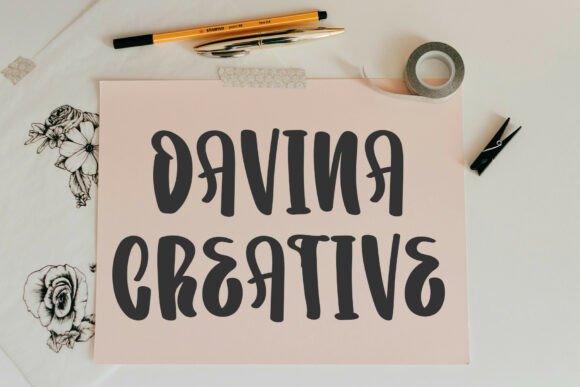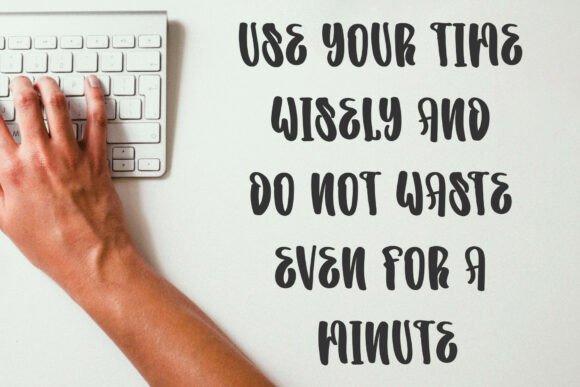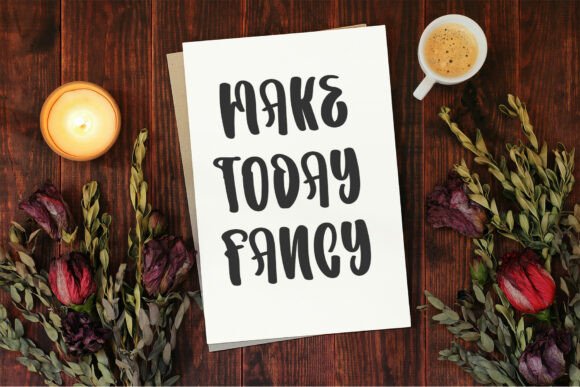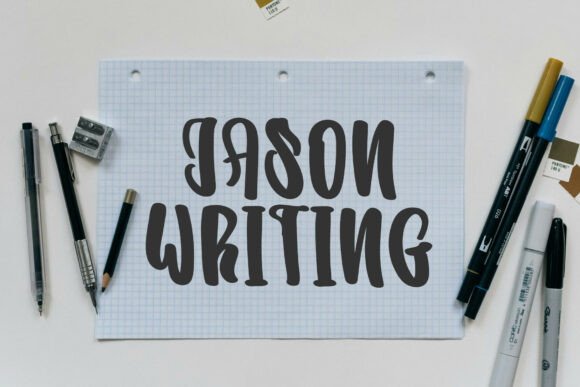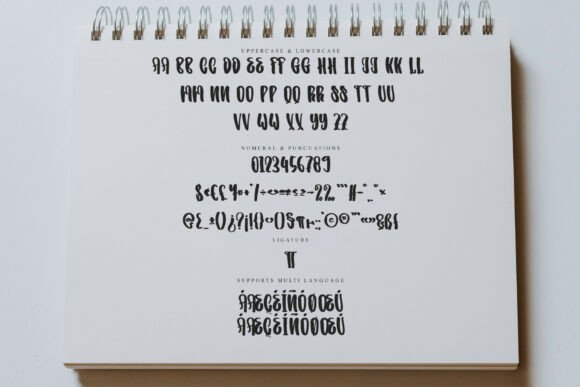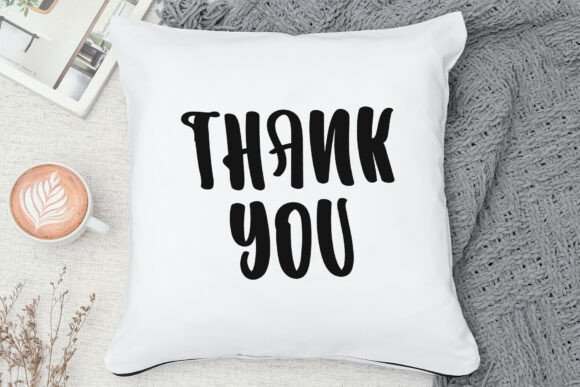
Introduction to Quarter Stacked Font
Quarter Stacked is a beautifully crafted display handwriting font that blends elegance with a modern, artistic touch.
Its flowing strokes and well-balanced curves create a sophisticated yet approachable feel, making it the perfect font choice for those who want to add a touch of class and personality to their designs .
Key Features of Quarter Stacked Font
Why Choose Quarter Stacked Font?